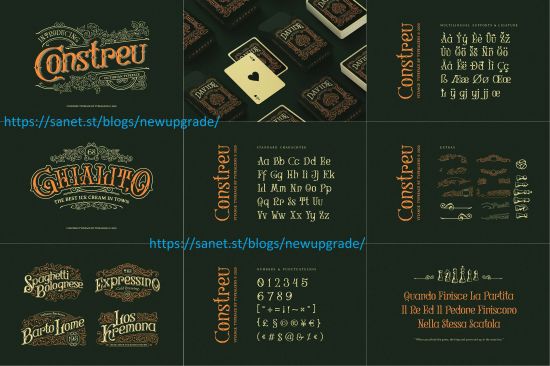
CONSTRUE
is a font with a victorian style typeface, quite simple and not too much ornamentation on the anatomy of the letters. It will be very suitable for vintage designs, such as making logos, logotypes, playing card, badge designs, liquor label designs, branding, advertising etc.
In addition to standard characters such as Lowescase, Uppercase, Numbers and Punctuation there are also bonus vector ornaments in the form of AI and EPS files.